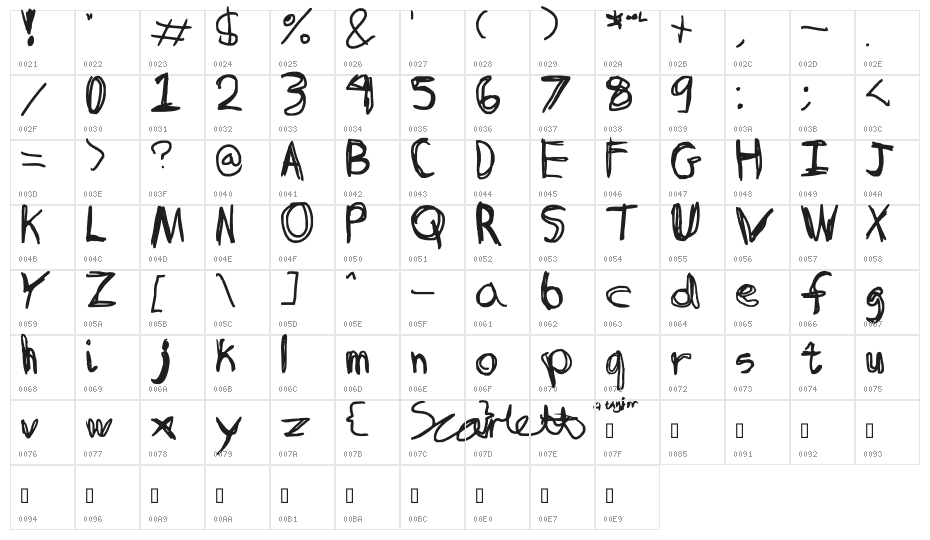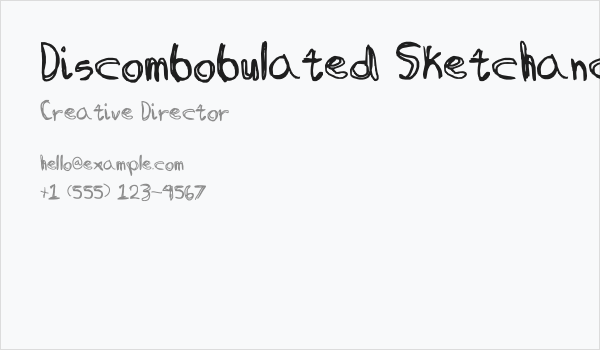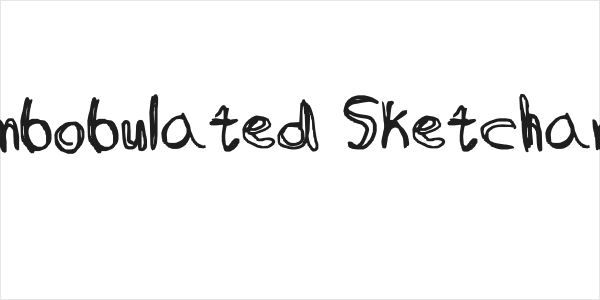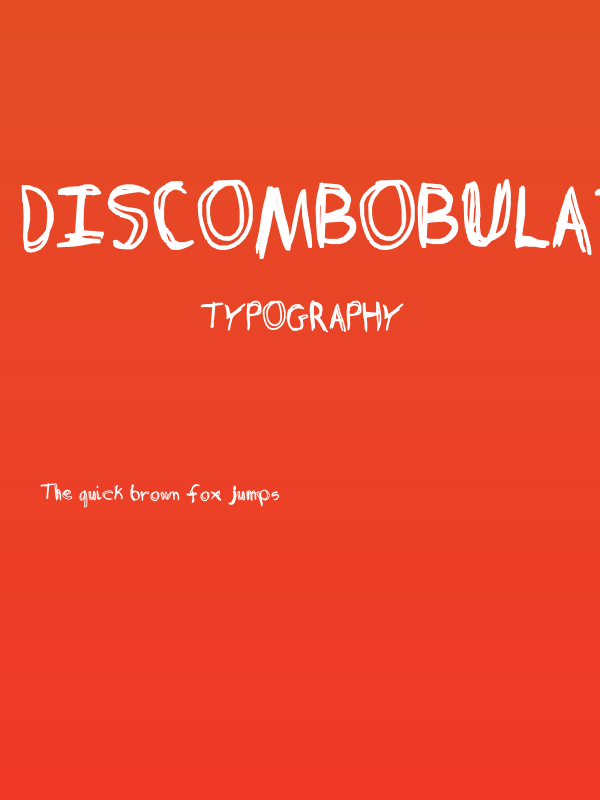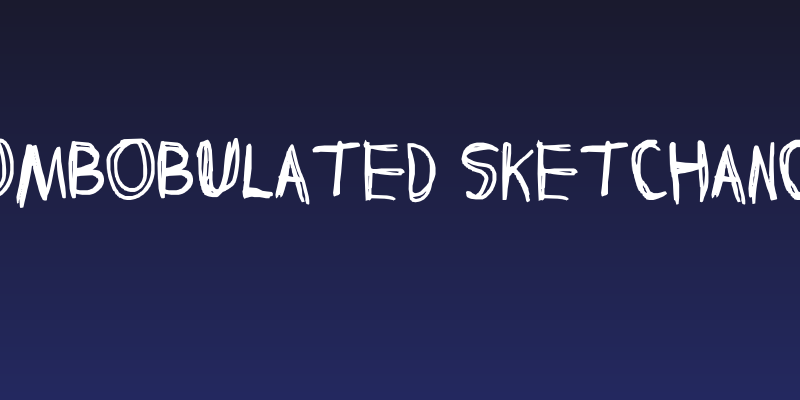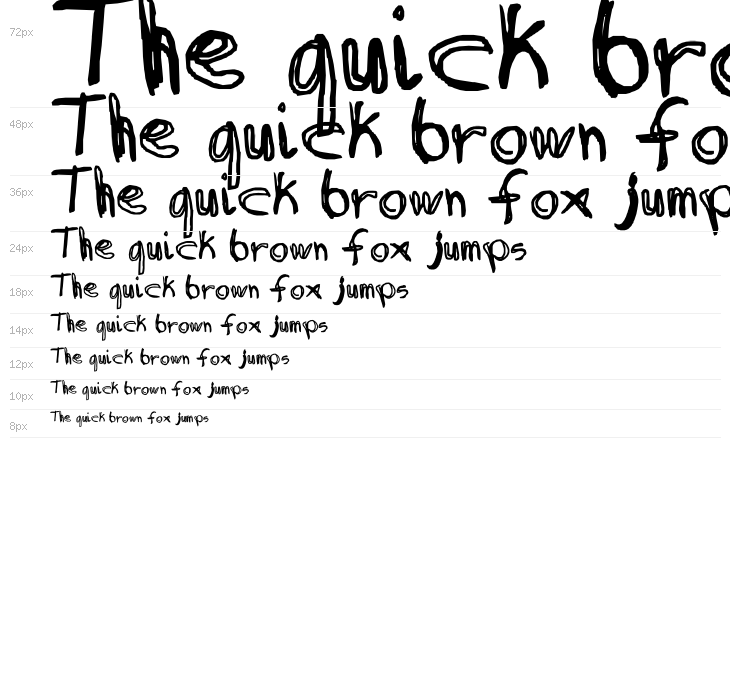
Discombobulated Sketchancholy Font
Discombobulated Sketchancholy Description
This font exudes a playful and chaotic energy, characterized by its hand-drawn, sketch-like appearance. The letters are uneven and irregular, giving it a whimsical and artistic feel. The strokes are bold and expressive, with varying thickness that adds to its dynamic nature. The overall style is informal and creative, making it ideal for projects that require a touch of individuality and flair. The font captures attention with its unique and quirky design, perfect for artistic and unconventional applications.